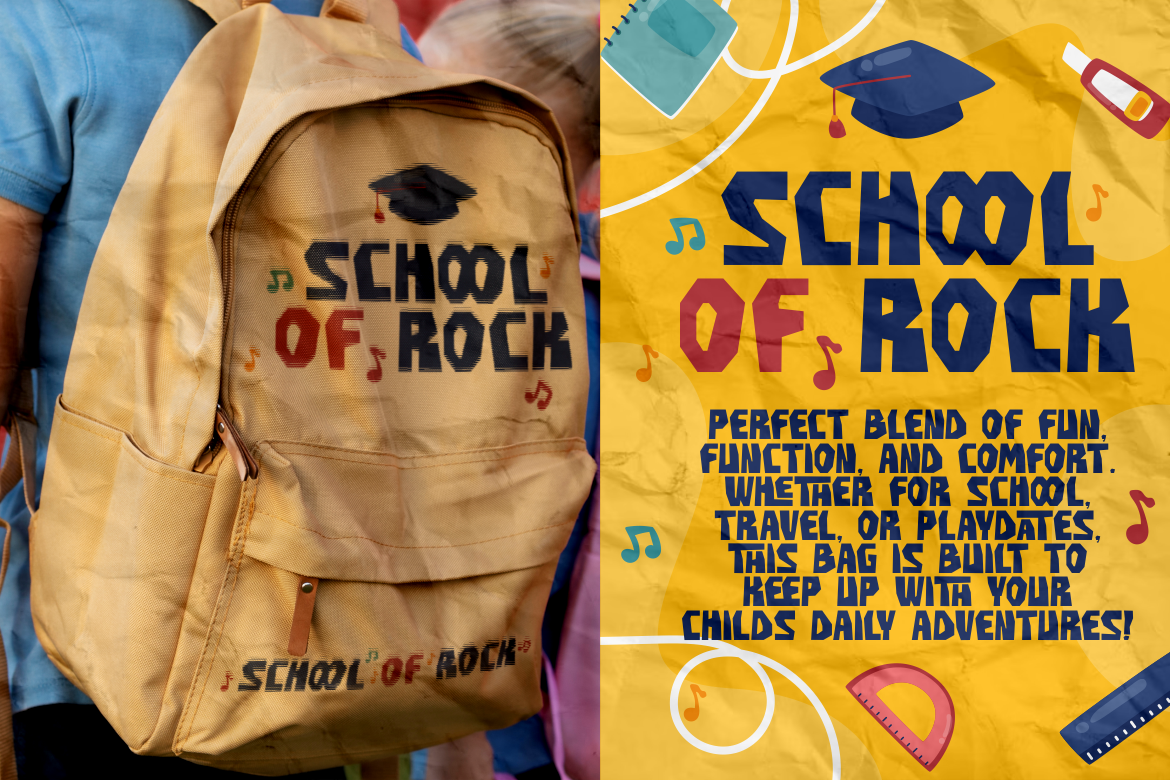
Typography plays a significant role in the education industry. Whether you’re designing a school logo, creating learning materials, publishing textbooks, building educational websites, producing classroom posters, or developing student projects, the right font helps improve communication and engagement.
Educational branding requires fonts that are approachable, readable, and visually appealing. Students learn better when information is presented clearly, while educational institutions benefit from consistent visual identities that inspire trust and professionalism. A well-chosen font can make educational content more memorable, enjoyable, and accessible for learners of all ages.
Today, schools, universities, tutoring centers, online learning platforms, and educational publishers are increasingly investing in strong visual branding. Fonts are no longer just decorative elements. They are essential tools for storytelling, knowledge sharing, and audience engagement.
In this guide, we’ll explore five of the best fonts for school and education projects that can elevate everything from classroom presentations to educational product branding.
Initial Suggestion
Before selecting a font for an educational project, consider the age group, learning environment, and purpose of the design.
Understand Your Audience
Different audiences respond to different typography styles.
Examples:
- Elementary students prefer playful and friendly fonts.
- Middle school learners enjoy creative and engaging designs.
- High school projects benefit from clean and modern typography.
- Educational brands often require professional but approachable fonts.
Prioritize Readability
Students should be able to read content quickly and comfortably.
Match the Subject Matter
Science projects, language books, mathematics worksheets, and school branding may require different visual styles.
Think Beyond the Classroom
A good educational font should work across:
- School logos
- Classroom posters
- Textbooks
- Educational websites
- Online learning platforms
- Presentation slides
- Student projects
- Learning applications
1. Super School – Funny Kids 10 Various Font
Super School is specifically designed around the spirit of learning, creativity, and childhood imagination. Featuring multiple playful styles within one package, this font collection offers incredible flexibility for teachers, schools, publishers, and educational content creators. The cheerful letterforms instantly create a friendly classroom atmosphere while remaining highly readable for young learners. Its versatility makes it suitable for everything from classroom decorations and worksheets to school branding and children’s educational products.
Pros
- Multiple font styles included
- Strong educational personality
- Kid-friendly appearance
- Highly versatile for classroom projects
- Excellent visual engagement
- Elementary schools
- Educational worksheets
- Classroom decorations
- Children’s learning materials
- School branding
- Educational presentations
2. Junior Schoolboy
Junior Schoolboy captures the playful energy of student life through its handwritten-inspired character design. It feels authentic, approachable, and creative, making it perfect for projects that want to reflect curiosity and learning. The font creates a personal touch that helps educational content feel less formal and more engaging for students.
Pros
- Friendly handwritten appearance
- Easy to read
- Creative and approachable
- Great classroom personality
- Student projects
- Educational blogs
- Classroom posters
- School newsletters
- Learning activities
- Creative presentations
3. Study Symbol – Quirky Education Theme Font
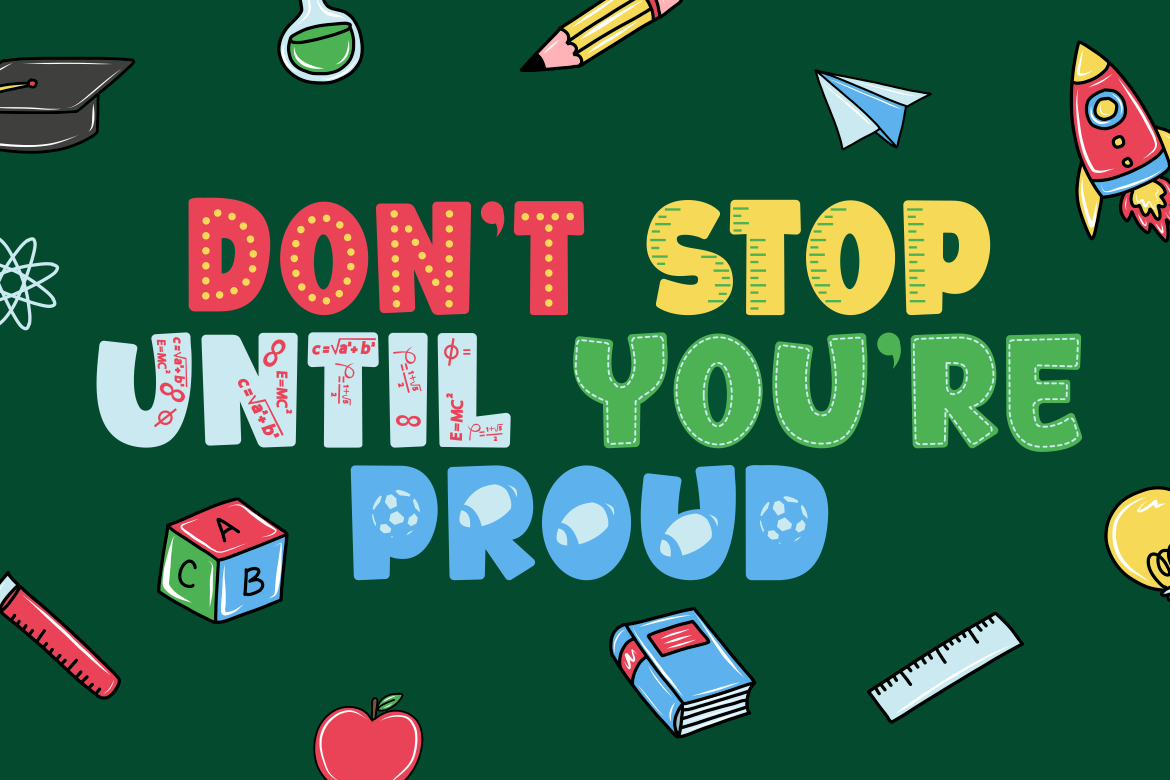
Study Symbol combines typography with educational-themed visual elements that immediately communicate learning and academic achievement. The font is designed to make educational content more exciting and visually memorable. It works particularly well for projects targeting younger audiences who benefit from engaging visual learning experiences.
Pros
- Strong educational theme
- Unique visual identity
- Highly engaging design
- Memorable appearance
- Learning centers
- Educational startups
- School campaigns
- Children’s books
- Academic events
- STEM programs
4. Clever Science – Quirky Education Theme Font
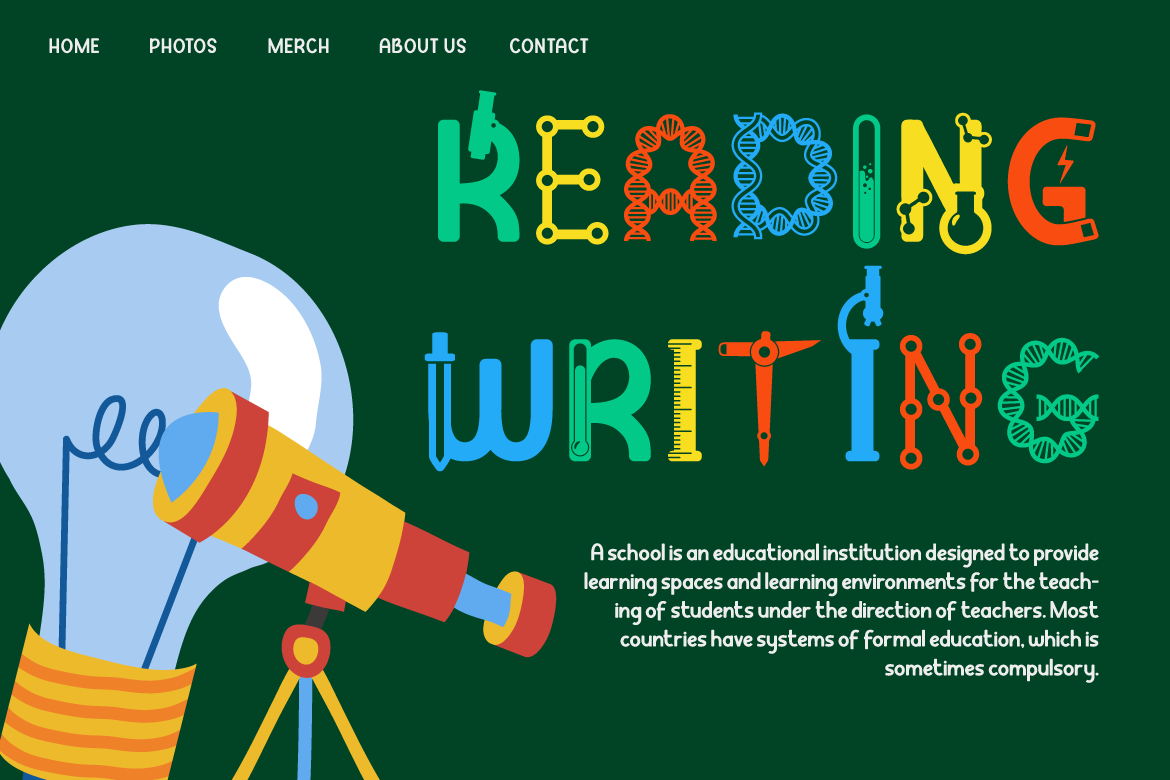
Clever Science brings a playful scientific atmosphere into educational branding. Its creative design makes complex subjects feel more approachable and enjoyable. Whether you’re creating science fair materials, laboratory-themed educational products, or STEM-related branding, this font helps reinforce a sense of discovery and innovation.
Pros
- Science-inspired personality
- Fun and engaging style
- Strong educational relevance
By selecting fonts that balance readability, personality, and educational relevance, schools, teachers, students, and educational brands can create more engaging and memorable learning experiences.